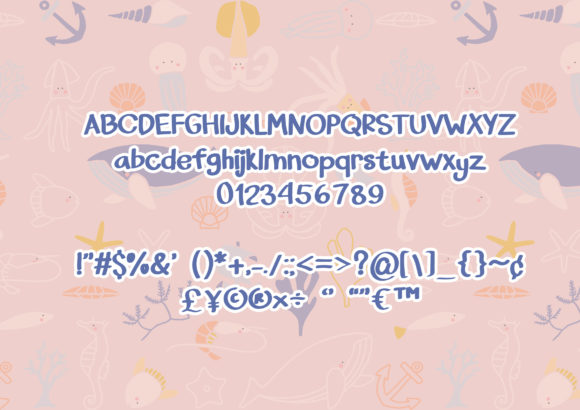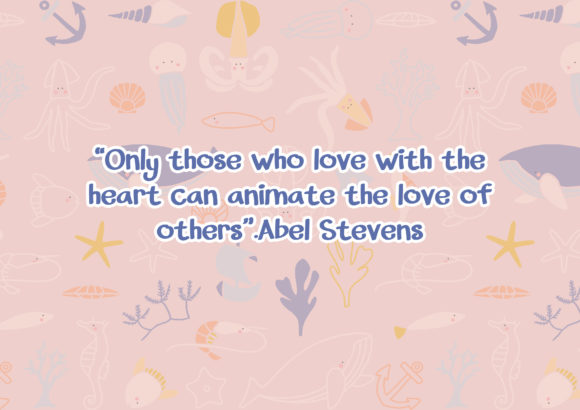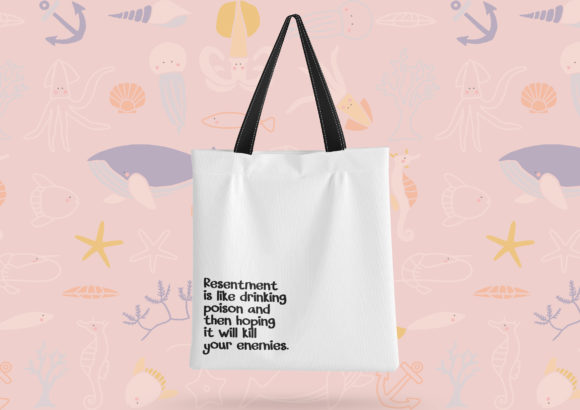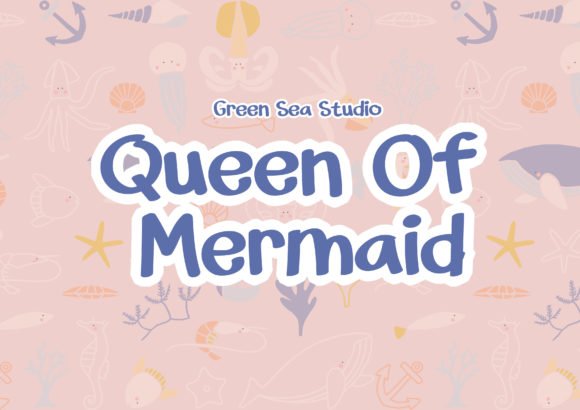
Introduction to Queen of Mermaid Font
Queen Of Mermaid is a playful and cute display font.
Whether you’re looking for fonts for Instagram or calligraphy scripts for DIY projects, this font will turn any creative idea into a true piece of art .